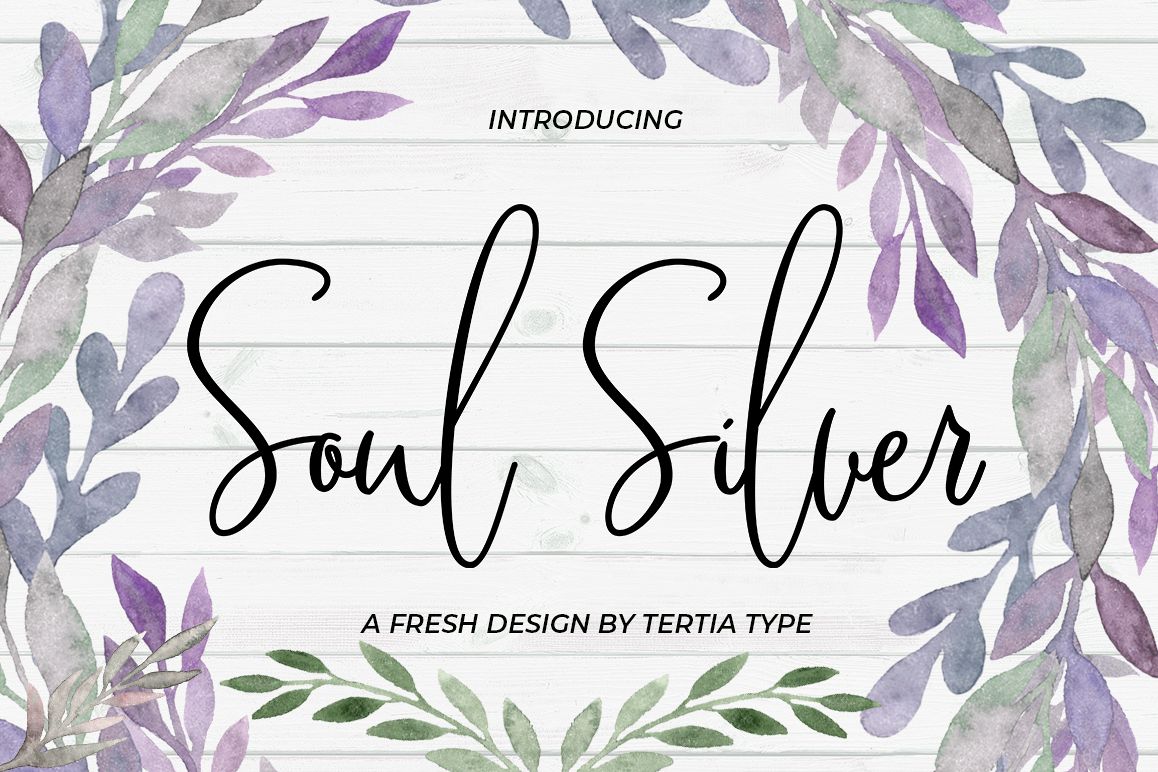
Soul Silver
Soul Silver is an elegant combination of a script and a narrow modern serif. It is slender, feminine and classy, while still maintaining a friendly feel. Soul Silver is versatile and will work perfectly for fashion, e-commerce brands, trend blogs, wedding boutiques or any business that wants to appear upscale and chic. With its many varian stylistic character Soul Silver Script is perfect for creating original and functional designs. It has extensive language support and tons of ligatures, alternates, stylistic sets that add visual interest to every letter.
You can use the Soul Silver script for high-end logotypes and magazine headlines, but let’s not forget greeting cards, invitations, posters, book covers, ads and the various web and screen usages. The overall feel of the font is elegant, sophisticated with a touch of informal and it is ideal if you want to convey a sense of class and style.